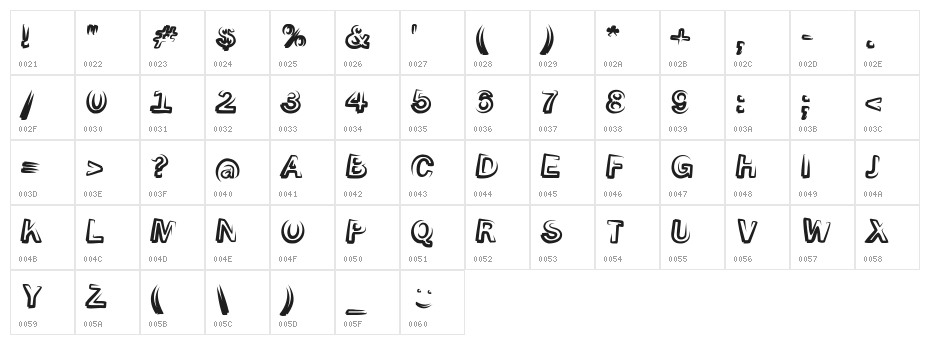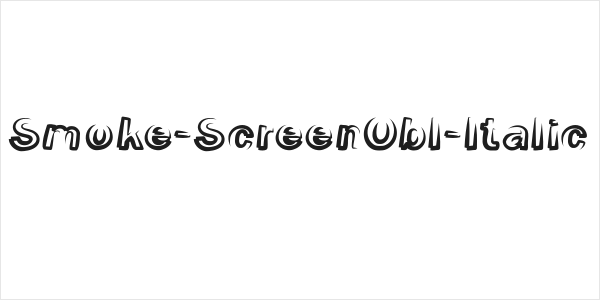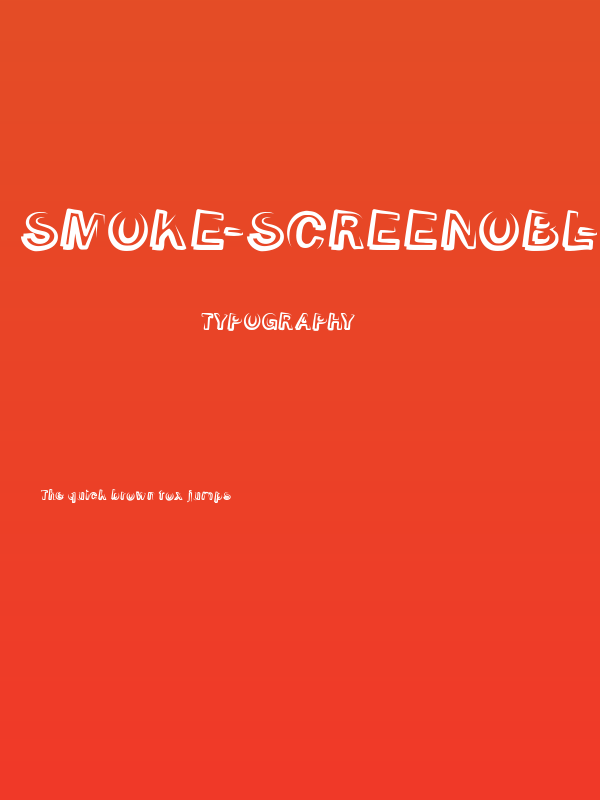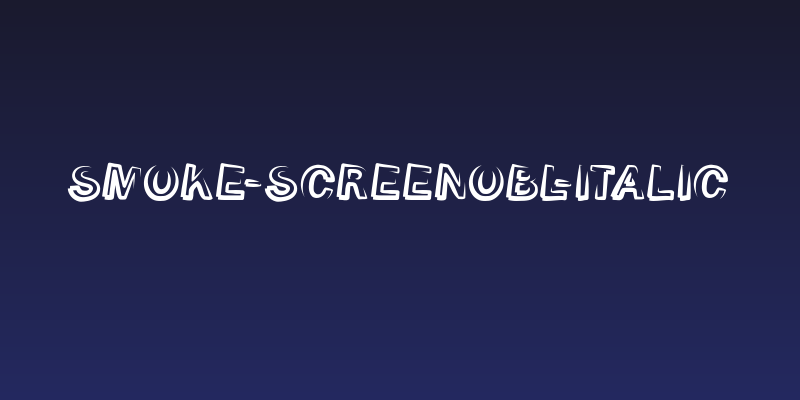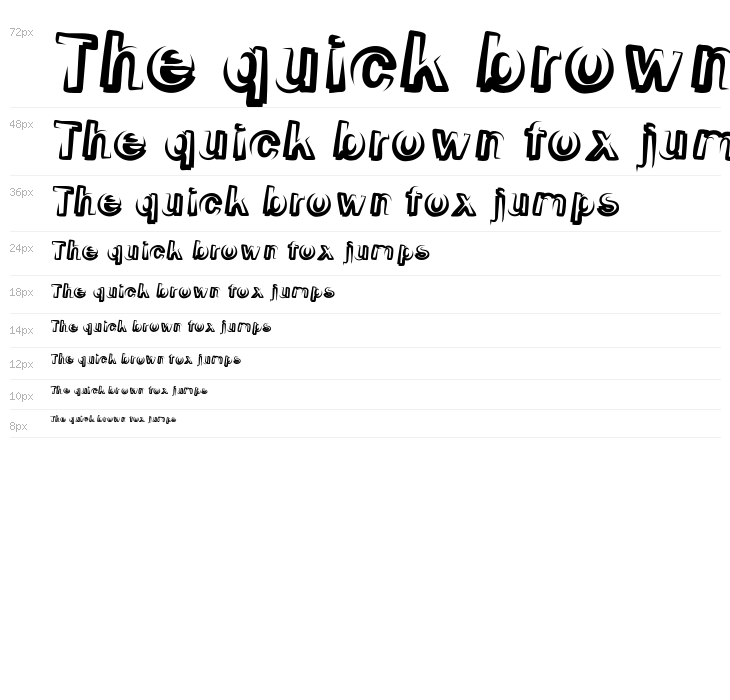
Smoke-ScreenObl-Italic Font
Smoke-ScreenObl-Italic Description
This font features a bold and dynamic style with a distinct italic slant, giving it a sense of movement and energy. The characters are outlined with a shadow effect, adding depth and a three-dimensional appearance. The uppercase and lowercase letters maintain a consistent style, with rounded edges and a playful, informal look. The numbers and special characters follow the same design principles, ensuring uniformity across all glyphs. This font's unique style makes it stand out, ideal for projects that require a bold and eye-catching typeface.
| Proposed Projects | Ideal for posters, logos, and branding materials that require a bold and energetic typeface. |